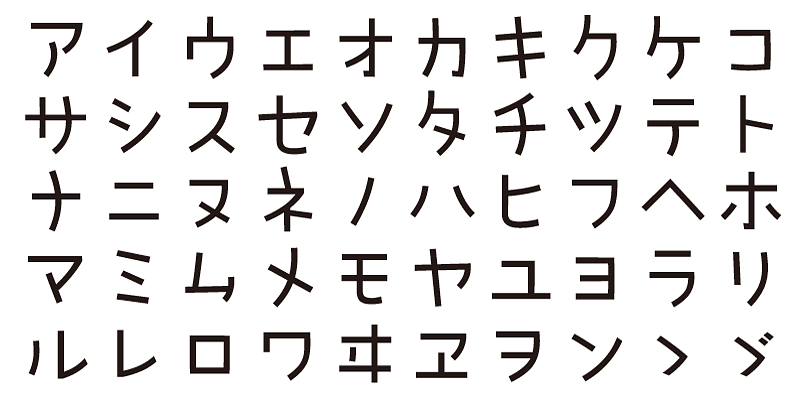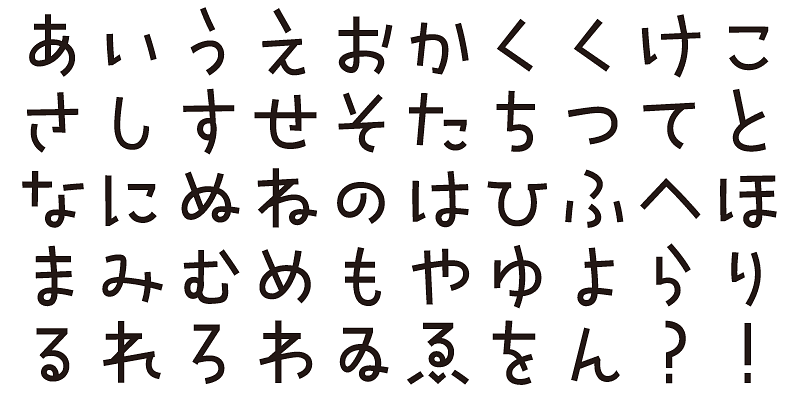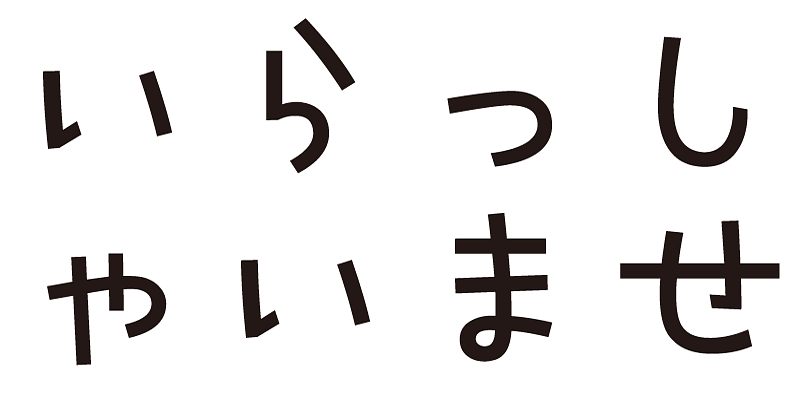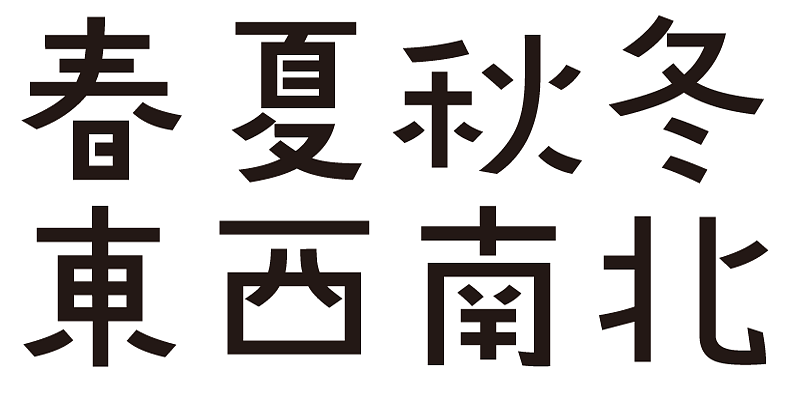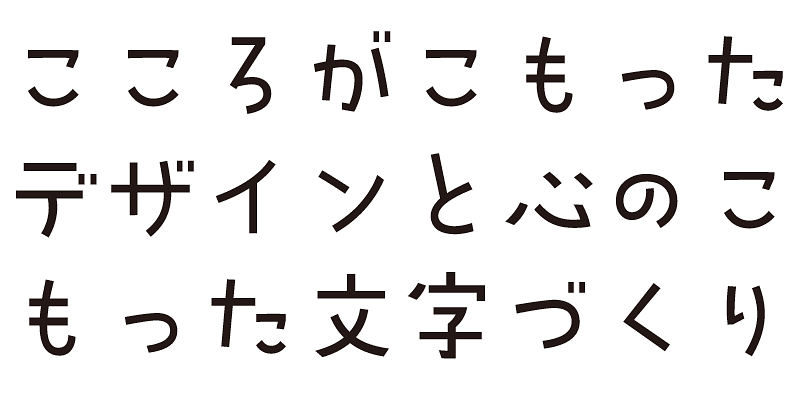
Based on the design of ADS-tomorrowwalk, this font’s kana characters have a mysterious charm that makes you feel as if you are bouncing lightly at ease.
Each font in this typeface family includes 1,000 kanji characters, as well as hiragana, katakana, alphanumeric characters, and punctuation marks.
We design typefaces with the hope that they will add underlying meaning to words expressed. We wish the user to feel good and experience comfort and joy when using these typefaces.